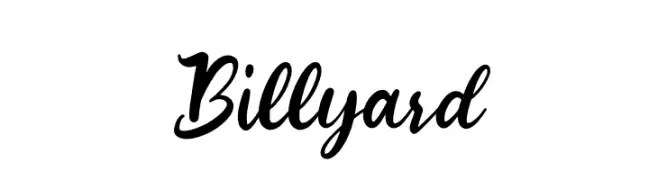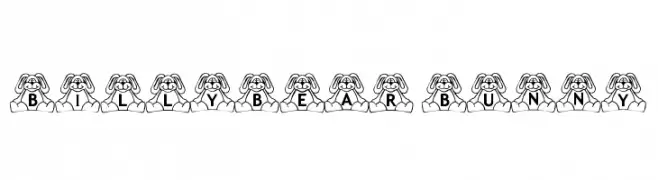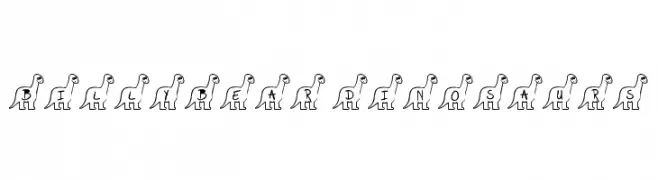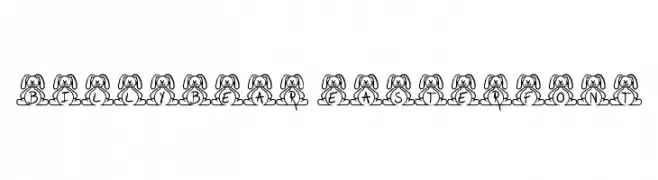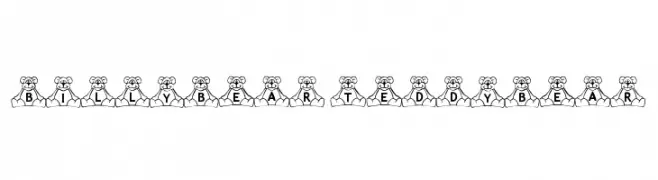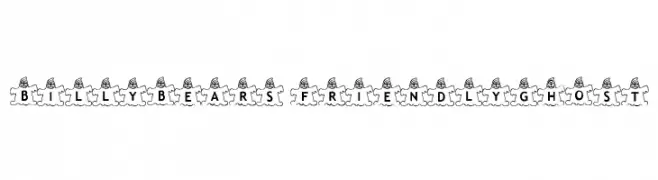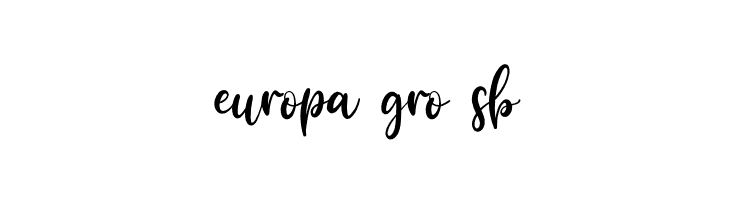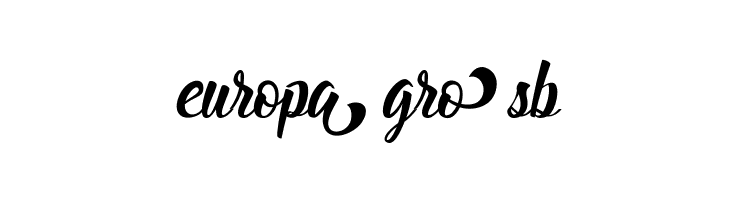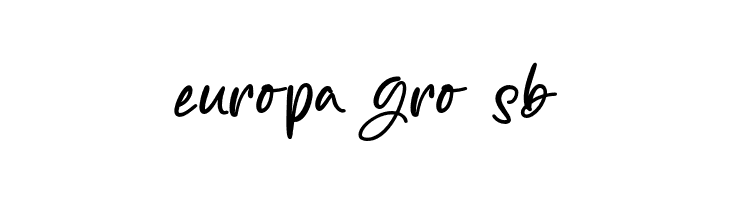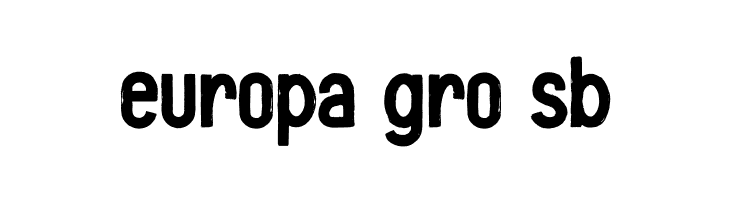
A cursive, handwritten-style font with elegant, flowing characters.
A modern cursive font with elegant, flowing characters.
A dynamic and elegant script font with flowing, bold letterforms.
A playful font with characters embedded in cartoon bunny designs.
A playful font with characters embedded in dinosaur shapes, perfect for fun and imaginative projects.
A whimsical font with characters set inside cartoon bunny designs, perfect for festive themes.
A whimsical font with characters encased in cartoon bear figures, perfect for playful designs.
A playful font with characters embedded in teddy bear designs, perfect for children's projects.
A playful font with characters inside friendly ghost shapes, perfect for whimsical designs.
A whimsical font with teddy bears holding heart-shaped characters, perfect for playful designs.